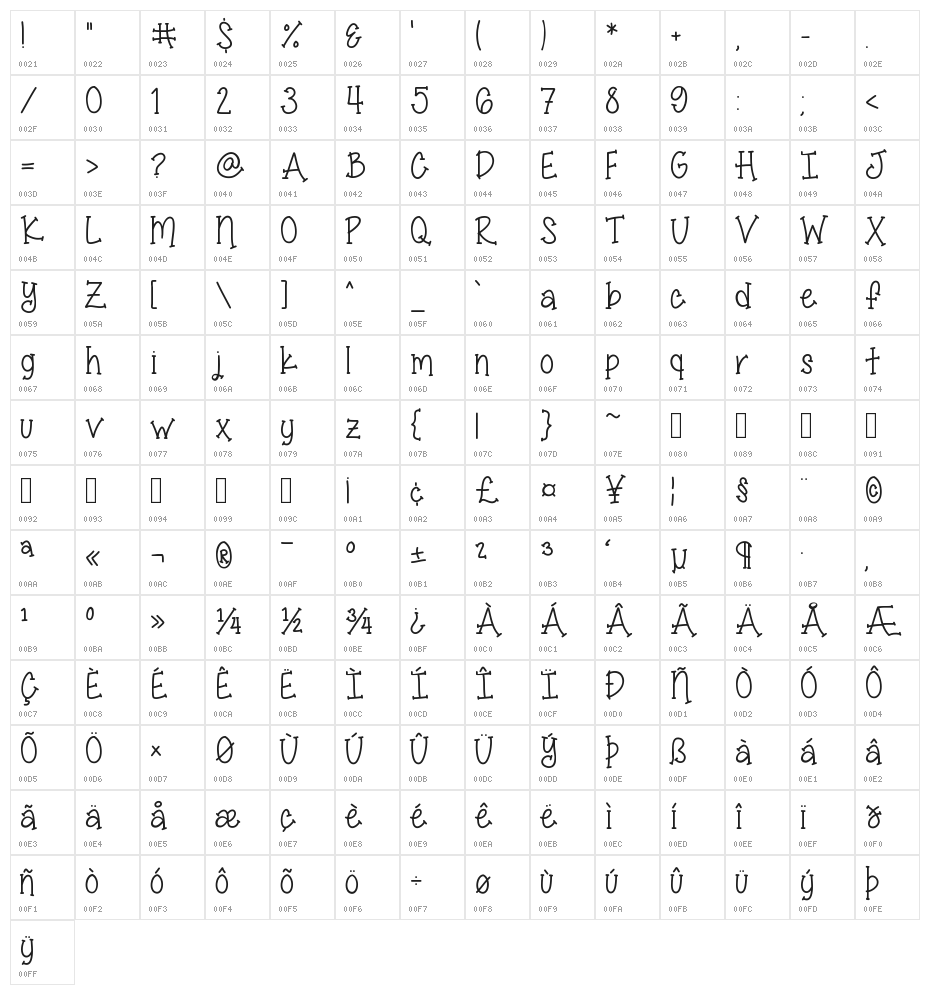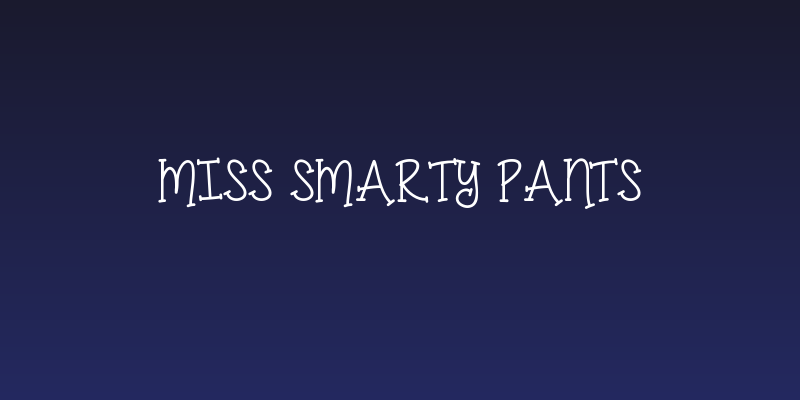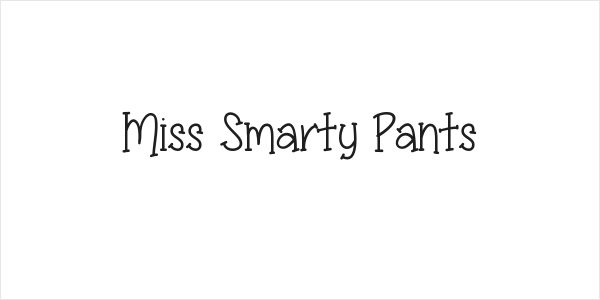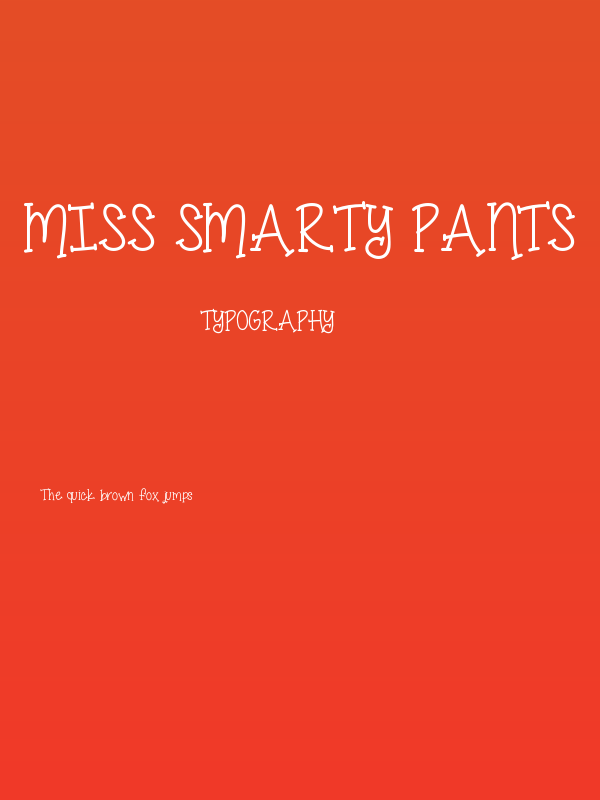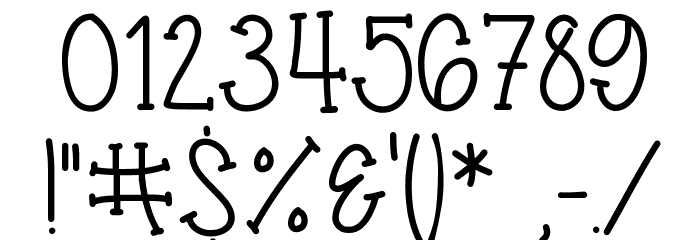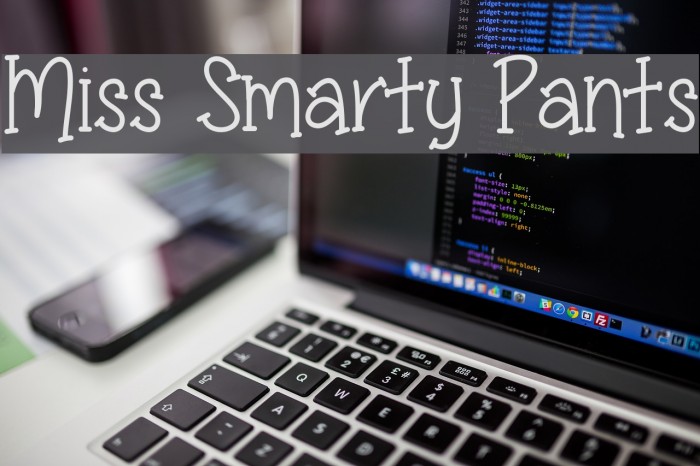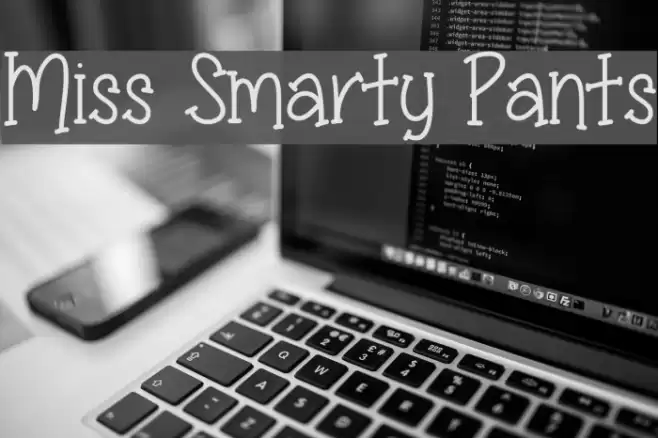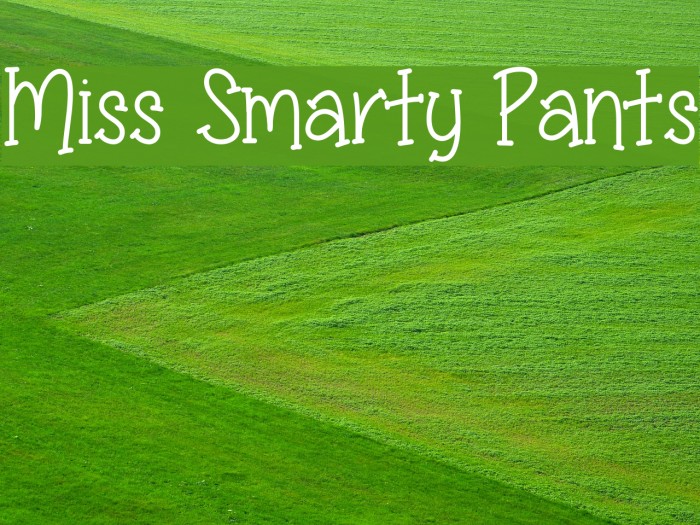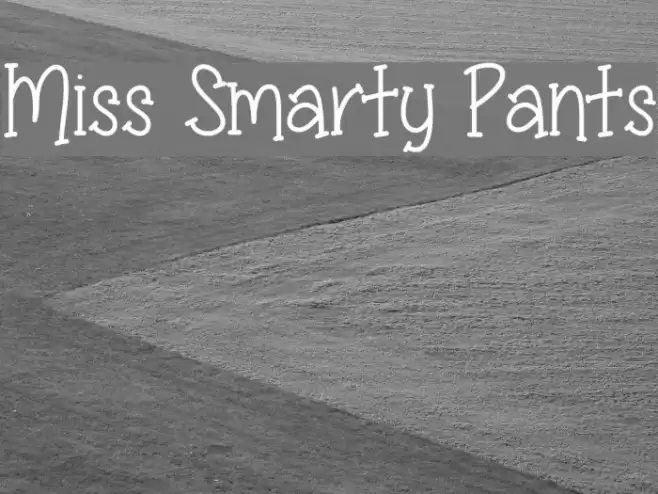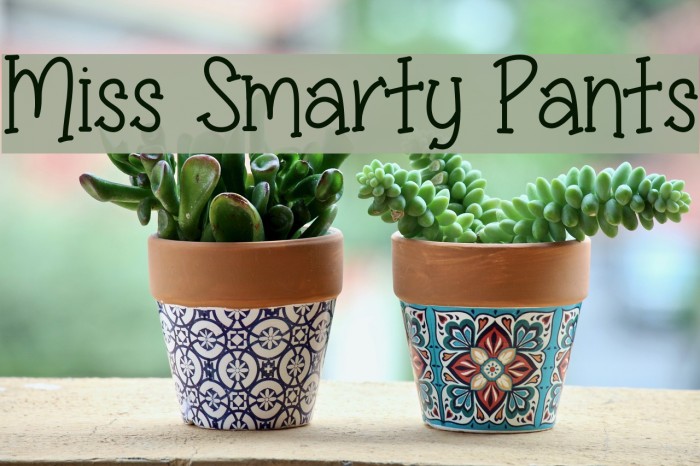
Miss Smarty Pants Font
Miss Smarty Pants Description
This font features a playful and whimsical style with a handwritten appearance. The letters are slightly irregular, giving it a casual and friendly feel. The strokes are consistent in thickness, providing a uniform look across all characters. The uppercase letters are bold and prominent, while the lowercase letters maintain a similar height, enhancing readability. Numbers and special characters are crafted with the same playful touch, making them blend seamlessly with the alphabet. The overall design is approachable and fun, suitable for projects that require a lighthearted and informal tone.
| Overall Style | Playful |
| Use Case | Headlines, Logos, Informal Text |
| Proposed Projects | Ideal for children's books, greeting cards, playful branding, and informal invitations. |